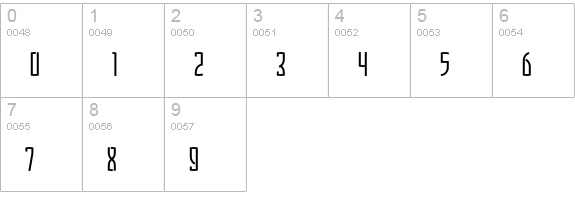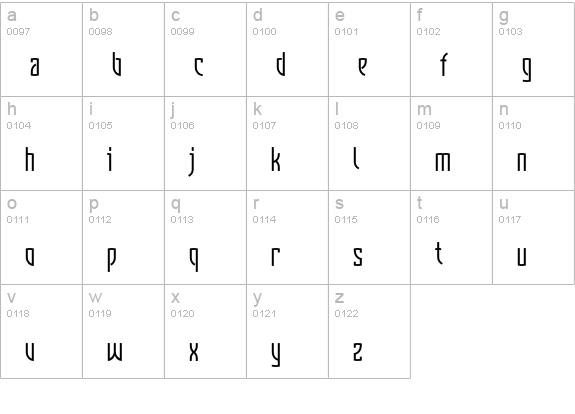
Komunique-Regular Font Details
Komunique-Regular is the standard, neutral variant in the Komunique typeface family \xE2\x80\x94 well suited to general body text, paragraphs, and standard typographic work.
Komunique-Regular font is a stylish and versatile typeface that exudes modernity and elegance. With its clean lines and balanced proportions, this font is perfect for a wide range of design projects, from branding to editorial layouts. The simplicity of its letterforms gives it a timeless appeal that can effortlessly elevate any design. What makes Komunique-Regular font even more appealing is that it is available for free download at FontsMarket.com. This means that you can easily access this high-quality font without any cost, making it a valuable addition to your font library. Whether you're a professional designer or a hobbyist looking to enhance your projects, Komunique-Regular font is a fantastic choice that combines both style and accessibility. Download it today and see how it can enhance your creative endeavors!